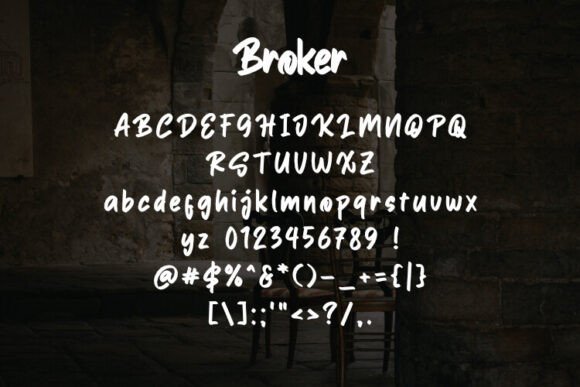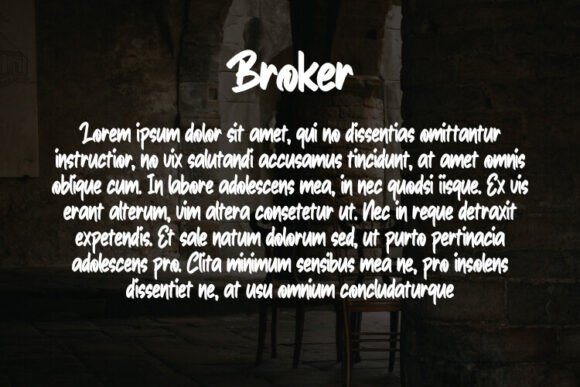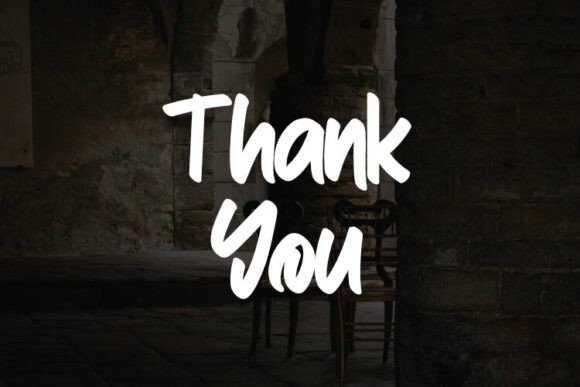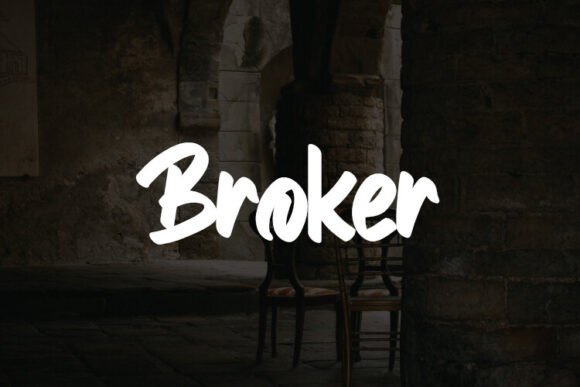
Unlock Your Creative Potential with the Broker Font
Have you ever been in the middle of a design project, and suddenly, it all comes down to finding that perfect font? I remember working on a t-shirt design for a client, and no matter how hard I tried, I just couldn’t find a typeface that captured the essence of the brand. That’s when I stumbled upon the “Broker” font, and it completely transformed my design. In this article, we’ll dive into the world of the Broker font, exploring its features, and how you can make the most of it in your creative projects.
A Personal Review of the Broker Font
As a designer, I’m always on the lookout for fonts that can elevate my work and make it stand out. The Broker font has quickly become one of my go-to typefaces, and here’s why:
- ✨ Versatility: The Broker font is incredibly versatile, making it perfect for a wide range of design projects, from clothing and t-shirt designs to product labels and branding materials.
- ✅ Sophisticated Touch: This font adds a touch of sophistication to any design, making it ideal for projects that require a bit of elegance.
- 🤔 Limited Ligatures: While the Broker font has a range of features, including OpenType and glyphs, it does have limited ligatures, which might be a drawback for some designers.
- ⚠️ Not Suitable for Body Text: Due to its stylish and elegant nature, the Broker font is best used for headlines and titles, rather than body text.
The Story Behind the Broker Font
The Broker font was designed with the creative spirit in mind. Its designer, a typography enthusiast, wanted to create a font that would not only be stylish but also versatile and adaptable. The result is a typeface that has quickly become a favorite among designers and crafters alike.
| Font Name | Broker Font |
| Author | Eric Kusuma |
| Is the Broker font suitable for body text? | No, the Broker font is best used for headlines and titles, rather than body text. |
In conclusion, the Broker font is a versatile and stylish typeface that can elevate your design projects and add a touch of sophistication. With its adaptability, OpenType features, and range of glyphs, it’s perfect for designers, crafters, and creative hobbyists alike.